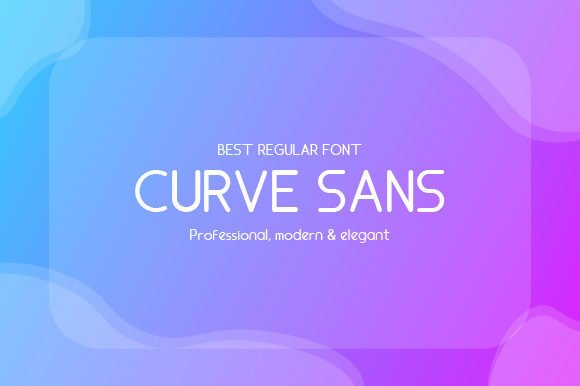
Have you ever been stuck on a design project, staring at a blank screen, wondering what font to choose? You know the feeling – it’s like trying to pick a color palette for a sunset. It’s all about finding the perfect balance between aesthetics and functionality. For designers, this is a daily struggle, but what if we told you that there’s a font that can make this process a whole lot easier?
Enter the Curve Sans Pro Font, a sleek and elegant sans serif font that’s perfect for a wide range of projects. Whether you’re working on a large-scale branding project or a small-scale blog post, this font is sure to deliver. Its minimalist design makes it comfortable to read, even on smaller screens, and its versatility means it’ll work beautifully on any background.
Curve Sans Pro Font Key Features
- Font Family: A modern sans-serif font designed for digital use, ideal for body text and headings.
- Font Styles: Available in 8 font styles, including Thin, Light, Regular, Medium, Bold, Heavy, Black, and Outline.
- Unique Characteristics: Curve Sans Pro features a unique, flowing curve to each letterform, giving it a friendly and approachable feel.
Curve Sans Pro Font Review
I’ve had the chance to work with Curve Sans Pro Font, and I must say, it’s a solid addition to any designer’s toolkit. ✨ One of its strengths is its versatility – it works beautifully for both digital and print projects. The font’s clean, modern aesthetic lends itself well to a wide range of applications, from branding to editorial design.
Another area where Curve Sans Pro excels is in its legibility. The font’s curves and lines are carefully crafted to ensure that text is easy to read, even at smaller sizes. This makes it an excellent choice for body text, headings, and even captions.
While Curve Sans Pro is a great font, it’s not without its limitations. ⚠️ One potential drawback is its lack of bold weights – if you’re looking for a font to make a statement, you may find that Curve Sans Pro falls a bit flat. Additionally, some users may find the font’s curves a bit too…curvy, for lack of a better term. This can make it difficult to pair with other fonts that have more angular or geometric shapes.
Overall, I think Curve Sans Pro is a great choice for designers looking for a clean, modern font that’s easy to read and works well across different mediums. While it may not be perfect for every project, it’s definitely worth considering for your next design challenge.
- Highly versatile font suitable for digital and print projects
- Excellent legibility, even at smaller sizes
- Modern, clean aesthetic
- Lack of bold weights may be a limitation
- May not pair well with fonts that have angular or geometric shapes
Use Curve Sans Pro for:
– Digital signage and displays
– Mobile apps and websites
– Branding and identity materials
– Pair with bold, sans-serif fonts for maximum impact
– Experiment with different font sizes and colors for emphasis
– Use in combination with other fonts to create a unique visual identity